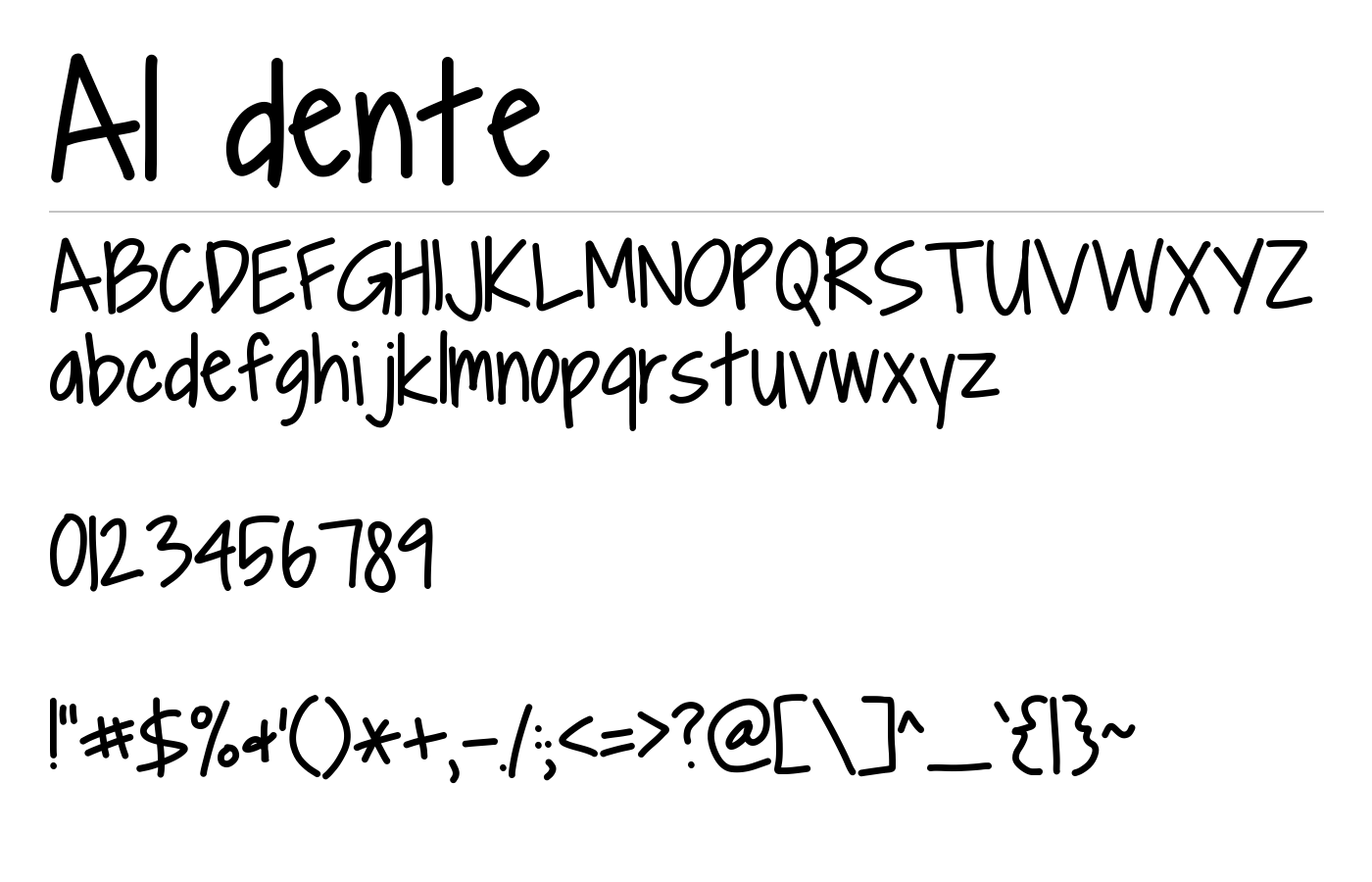
Al dente is a playful and informal handwritten sans serif font that features a casual, friendly vibe with its irregular stroke width and slightly quirky letterforms. Its light weight and airy spacing make it ideal for personal, fun, or creative projects such as greeting cards, children’s books, or casual branding. The font’s approachable style works well in headlines or short texts where a touch of personality is desired.
Al dente Font
About Al dente Font